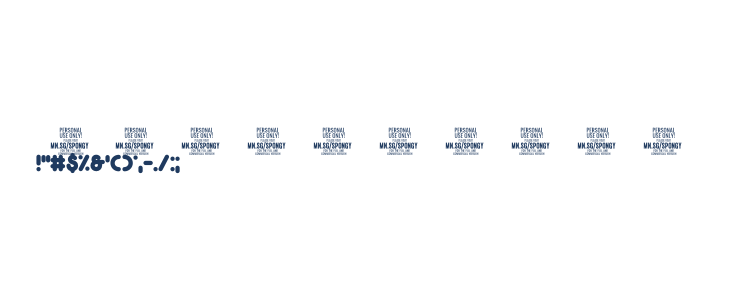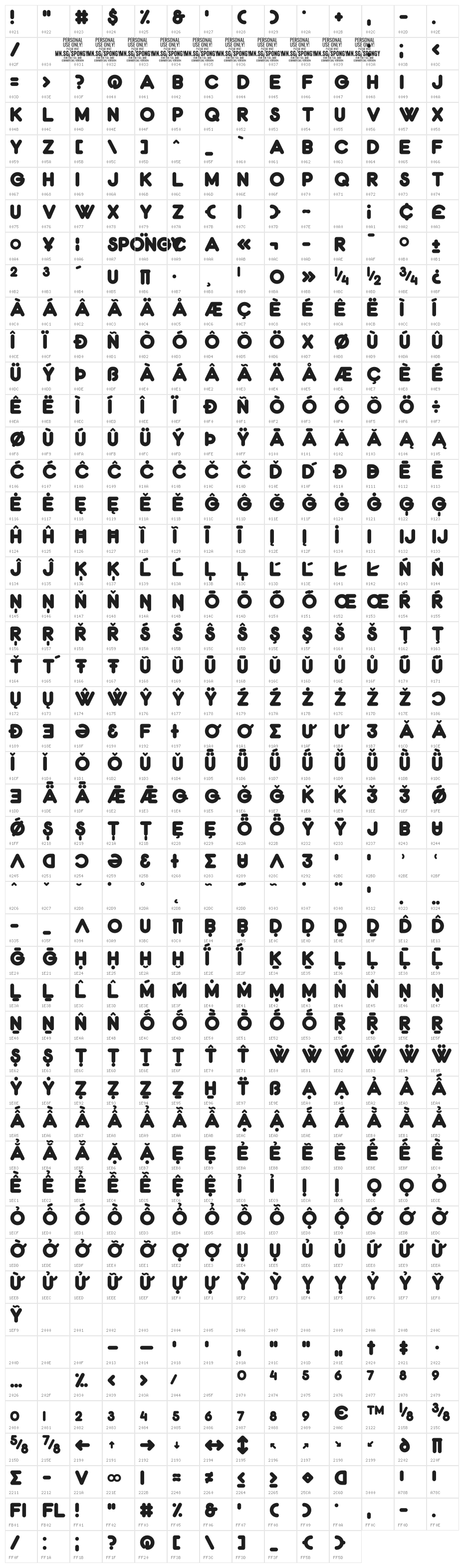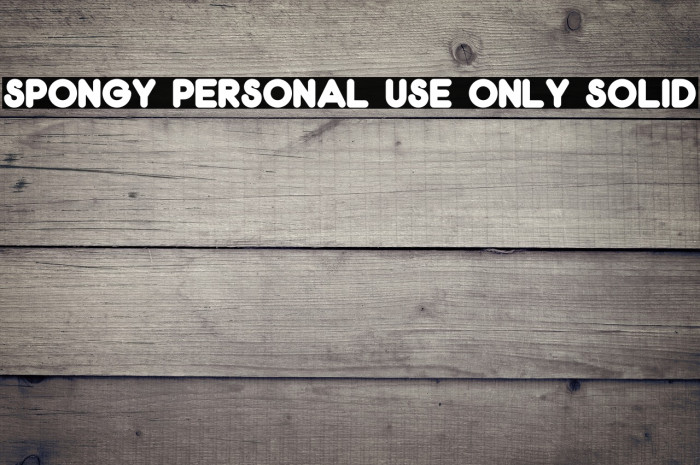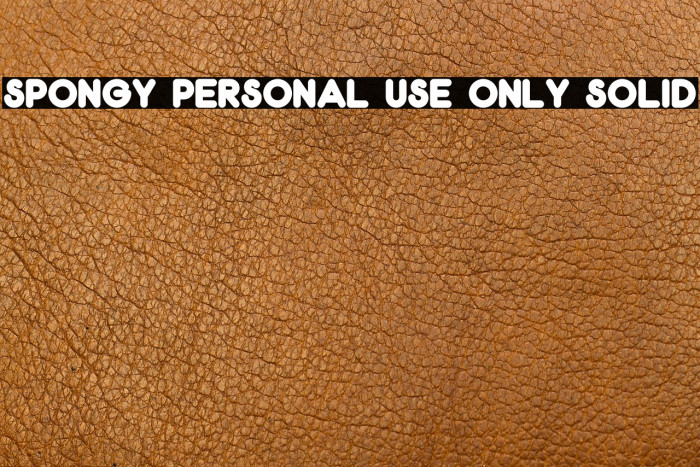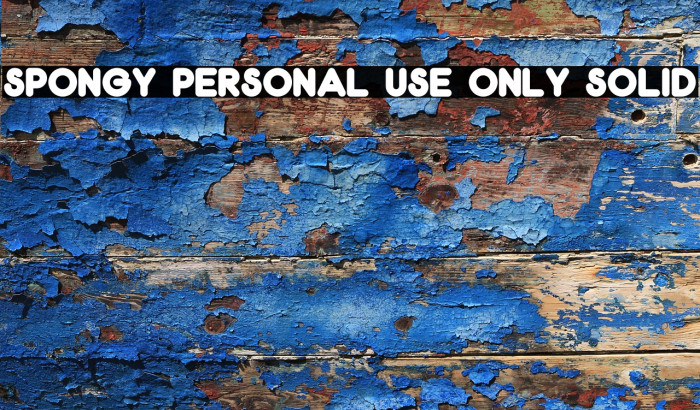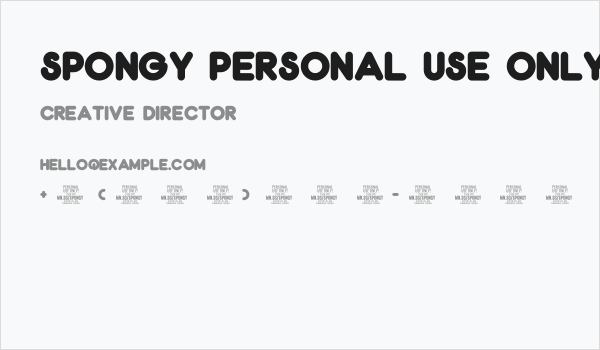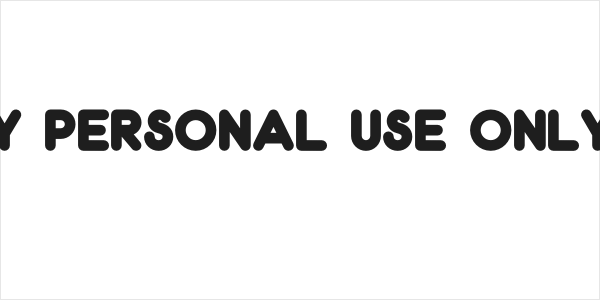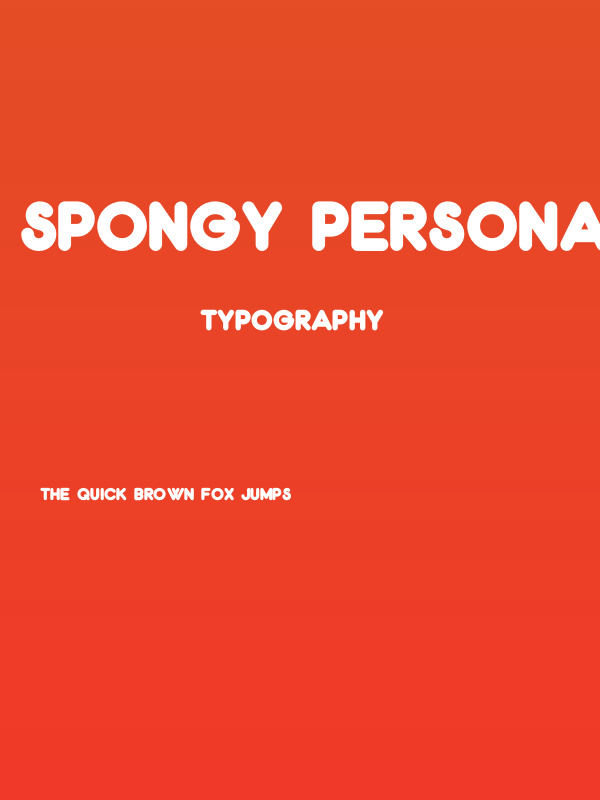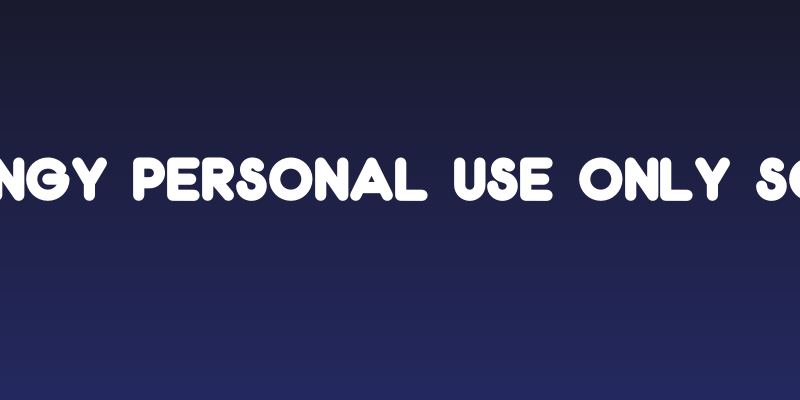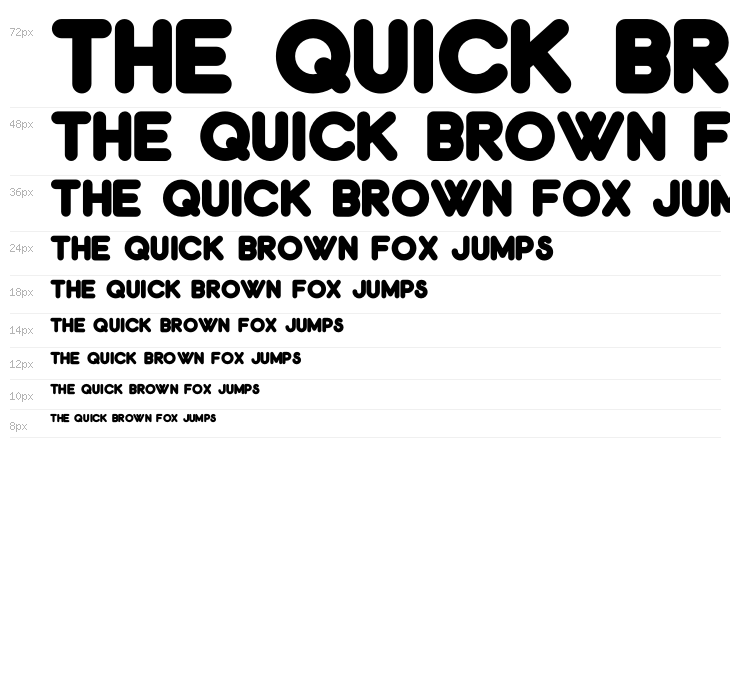
Spongy PERSONAL USE ONLY Solid Font
Spongy PERSONAL USE ONLY Solid Description
This font features bold, rounded characters with a playful and modern aesthetic. The letters are thick and uniform, creating a strong visual impact. The rounded edges give it a soft, approachable feel, making it suitable for designs that require a friendly and inviting look. The consistent thickness across all characters ensures readability while maintaining a unique style. The font includes both uppercase and lowercase letters, numbers, and a variety of special characters, providing versatility for different design needs.
Proposed ProjectsIdeal for children's books, playful branding, posters, and social media graphics.